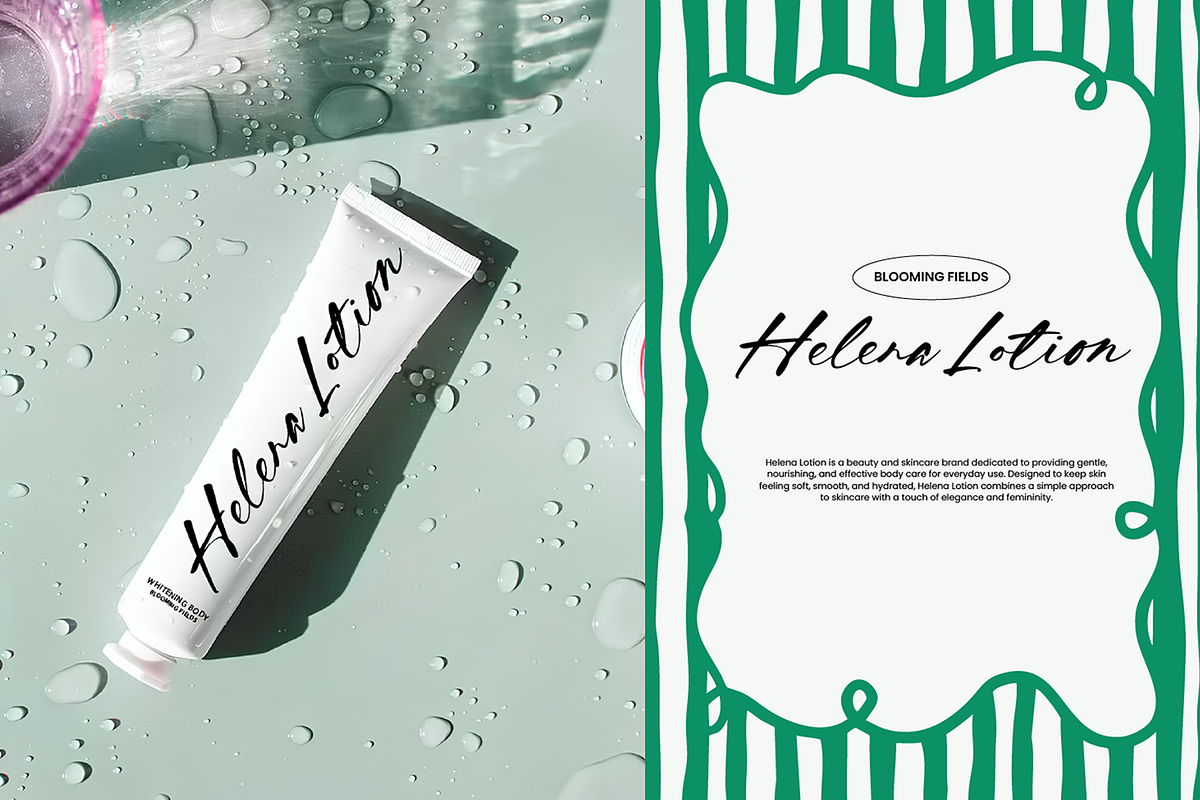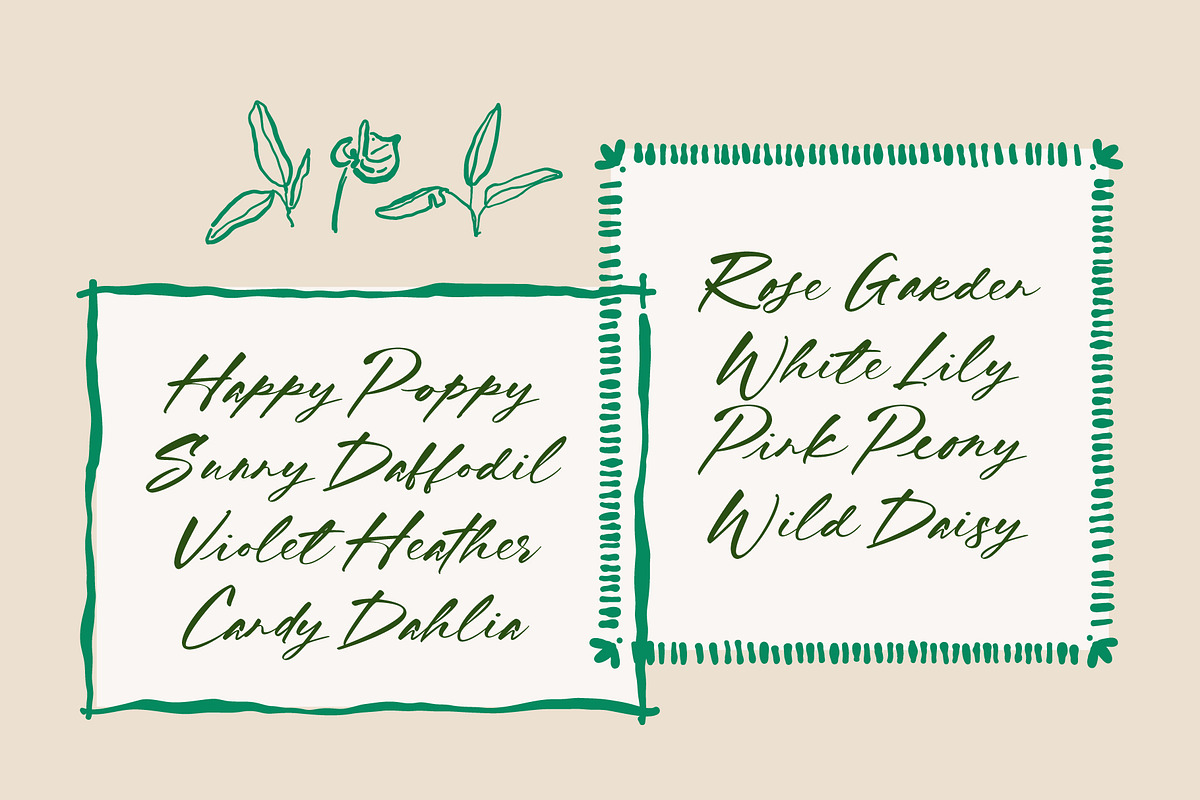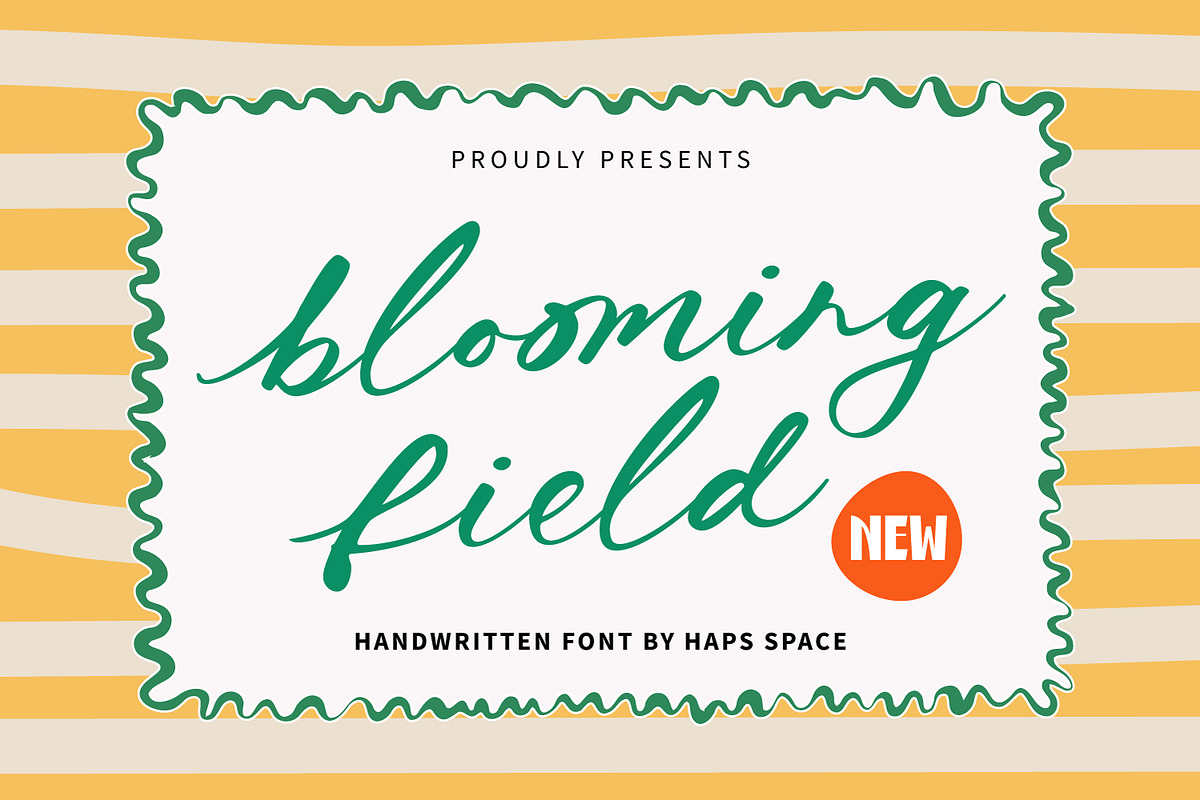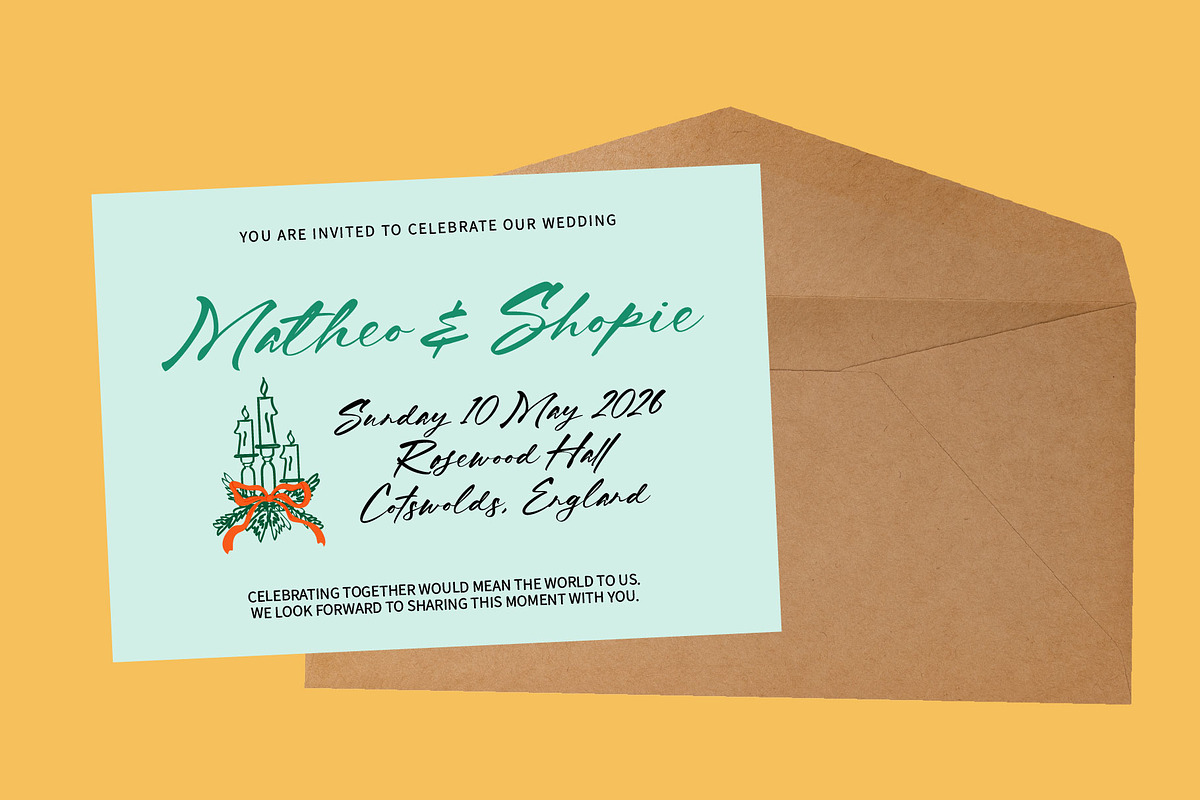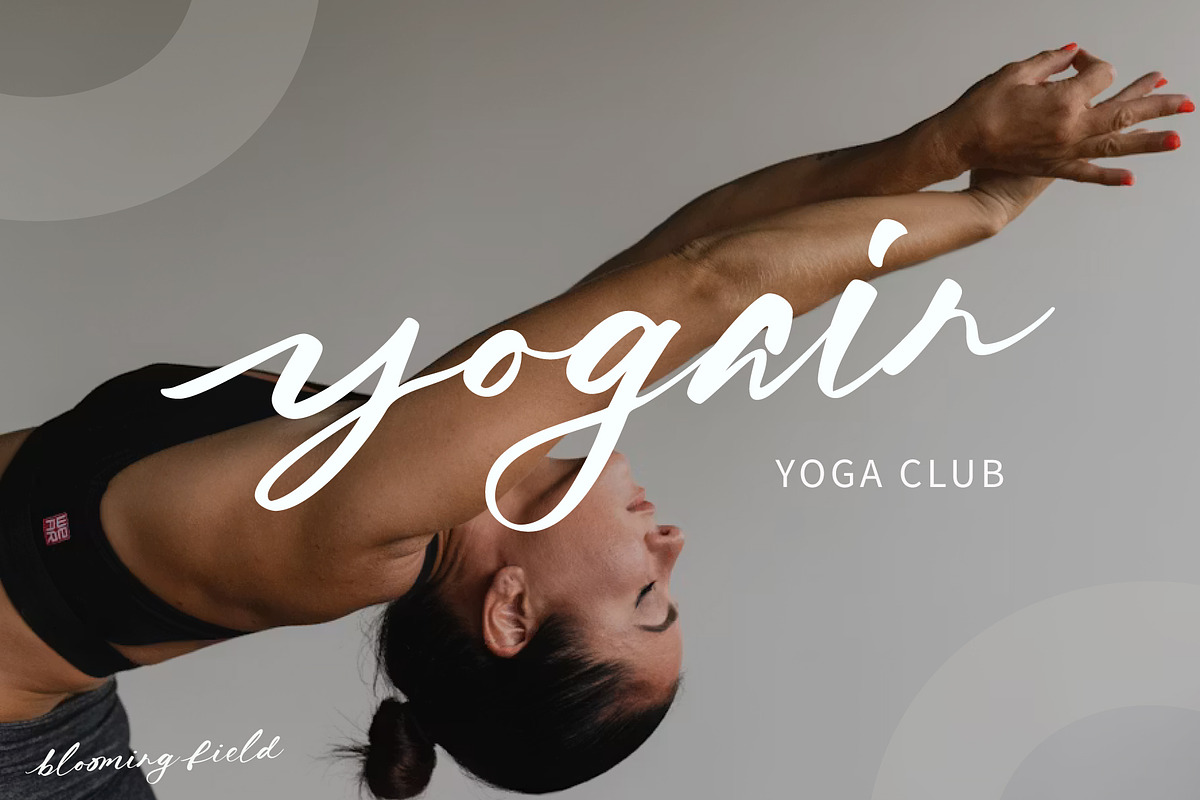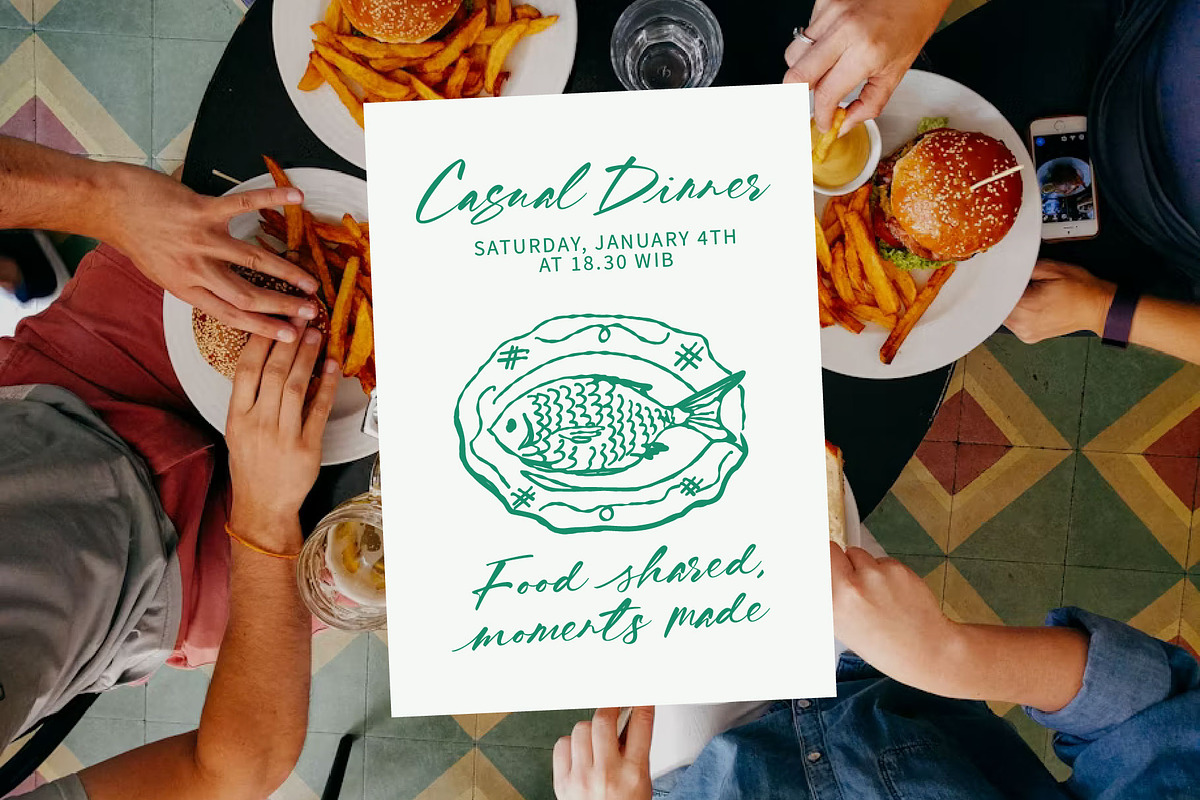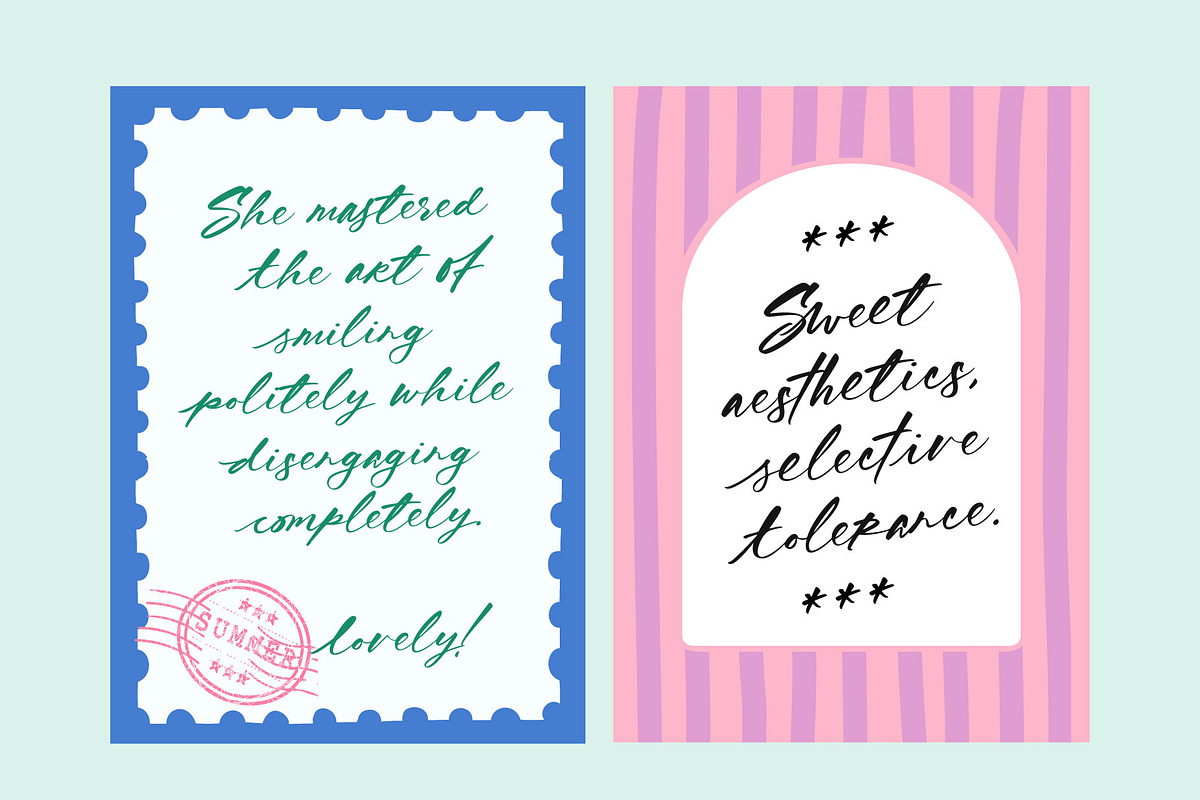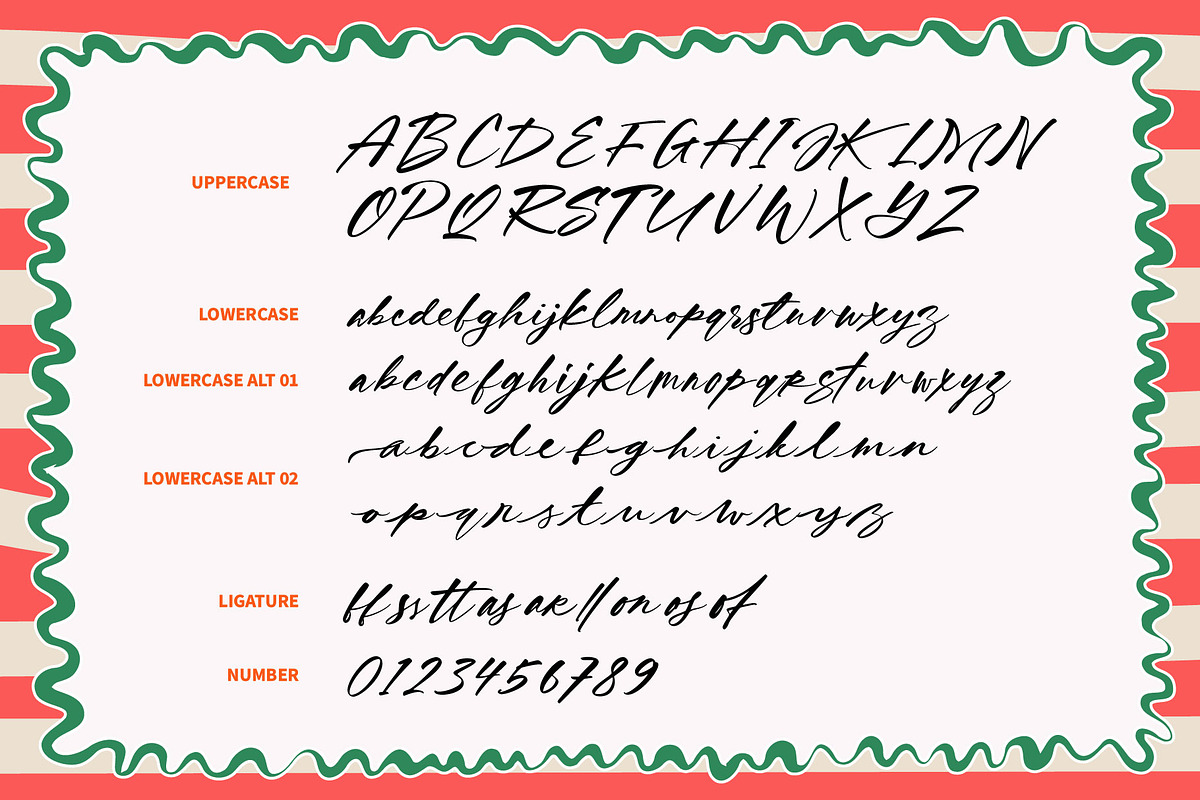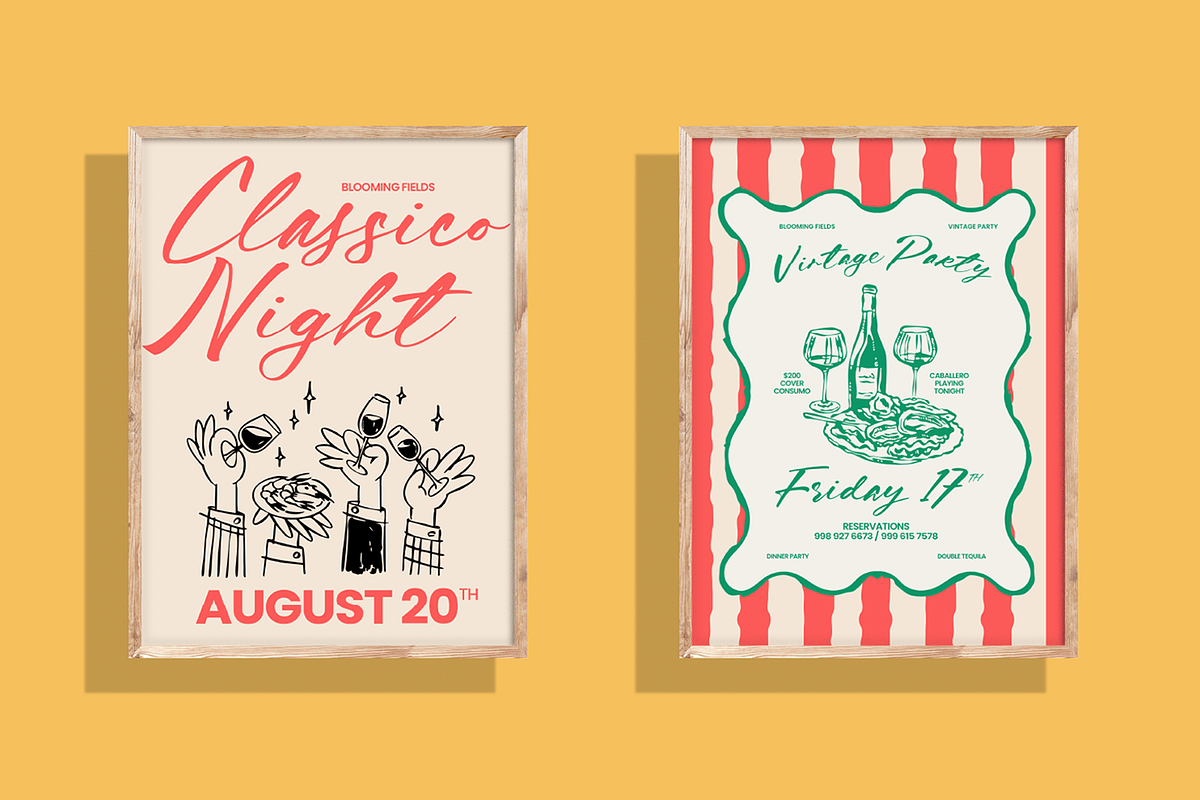
Blooming Field Handwritten Script
Blooming Field is a fresh, natural handwritten script font designed to bring organic warmth, playful charm, and lively elegance to your creative projects. Featuring smooth cursive loops, clean hand-drawn strokes, and a cheerful aesthetic, this typeface captures a bright, garden-inspired feel that instantly elevates display typography.
Crafted with high attention to detail, Blooming Field is ideal for design layouts that require a sweet, personal, and handcrafted touch.
Complete Character Set: Includes full Uppercase and Lowercase script letterforms.
Numbers & Punctuation: Complete set of numerals, standard symbols, and punctuation marks.
Smooth Ligatures & Flow: Designed for natural cursive handwriting rhythm.
Multilingual Support: Accented characters supporting various European and Latin-based languages.
Ideal Applications:
Floral & Botanical Branding: Perfect for flower shop logos, garden centers, eco-friendly product labels, and organic cosmetics.
Spring & Summer Decor: Bright typography for greeting cards, seasonal flyers, event invitations, and party banners.
Packaging & Goods: Charming labels for bakery products, handmade candles, artisanal tea, and craft gifts.
Editorial & Social Media: Aesthetic overlays for Instagram posts, Pinterest graphics, quote art, and lifestyle blog headers.
Craft & Stationery: Distinctive handwritten prints for notebook covers, planner stickers, mugs, and wall art.